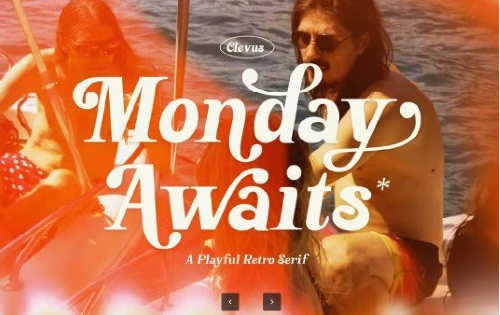
Monday Awaits Font
Introducing Monday Awaits, a bold and playful vintage serif font that brings a touch of nostalgia to your designs. Designed to elevate your brand, its vintage aesthetic is versatile, making it a great choice for a wide range of projects, from packaging and advertising to editorial design and more.